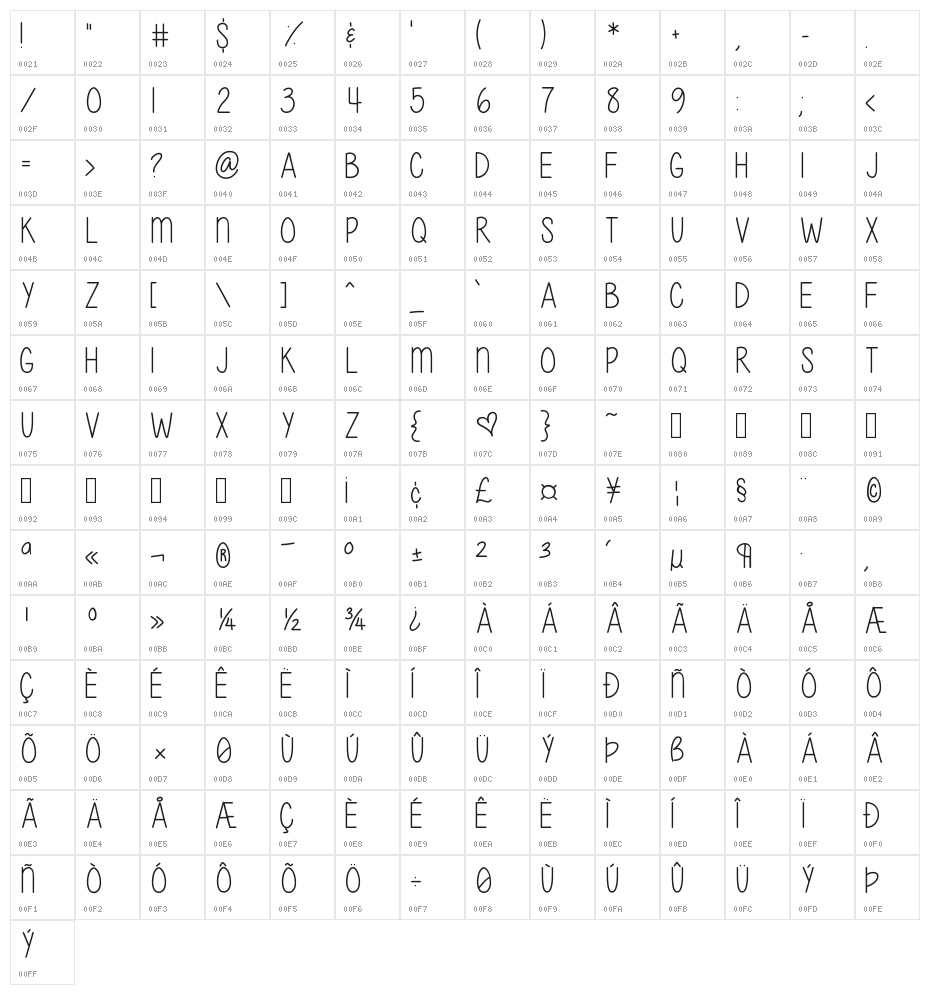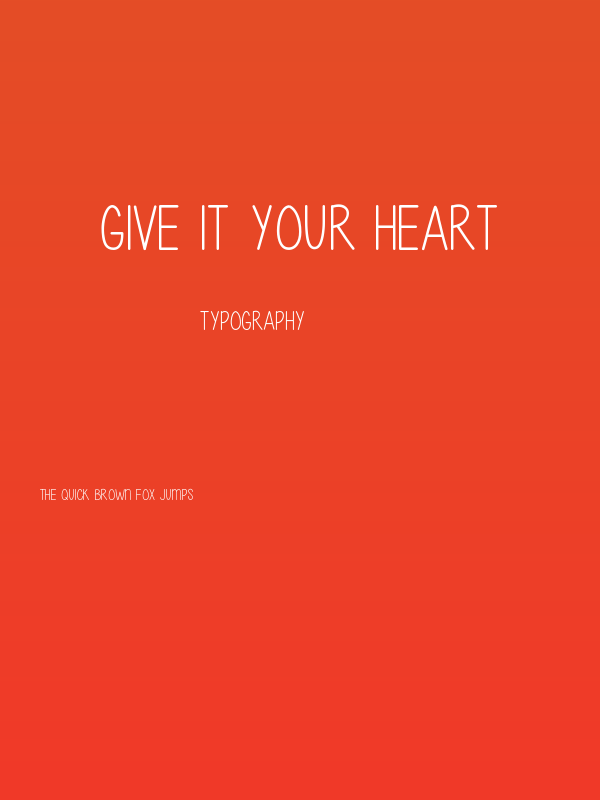
Give It Your Heart Font
Give It Your Heart Description
This font features a playful and casual handwritten style, characterized by its rounded and slightly elongated letterforms. The strokes are consistent in weight, giving it a uniform appearance. The uppercase and lowercase letters maintain a harmonious balance, with a slight slant that adds to its informal charm. The numerals and special characters are designed to match the overall aesthetic, making it versatile for various uses. Its simplicity and readability make it suitable for both digital and print media, where a friendly and approachable tone is desired.
| Use Case | Headlines, Logos, Social Media |
| Proposed Projects | Ideal for greeting cards, children's books, casual branding, and social media graphics. |